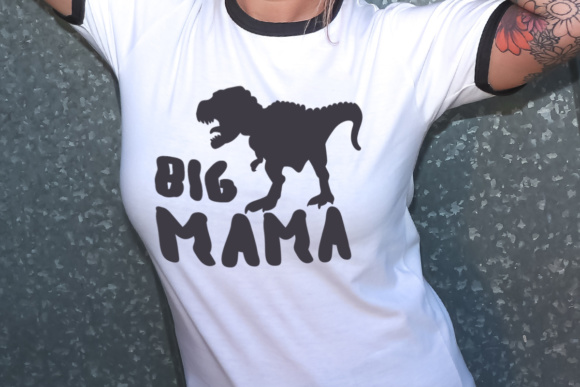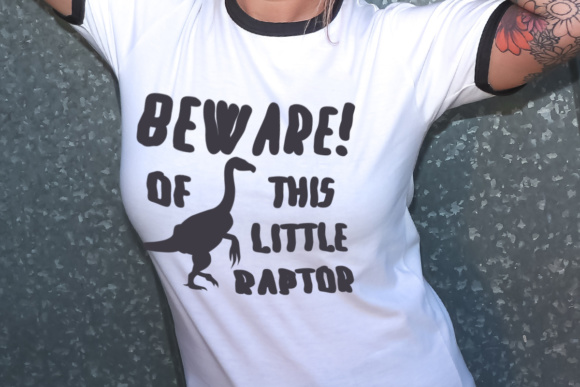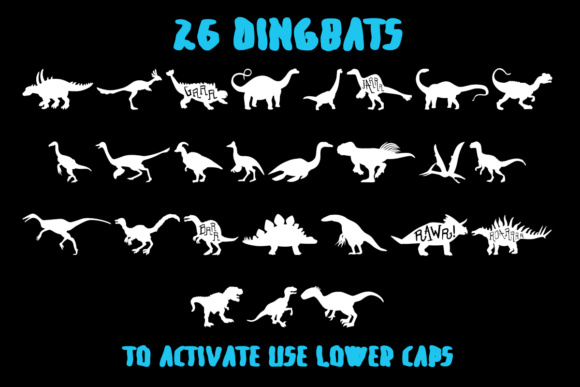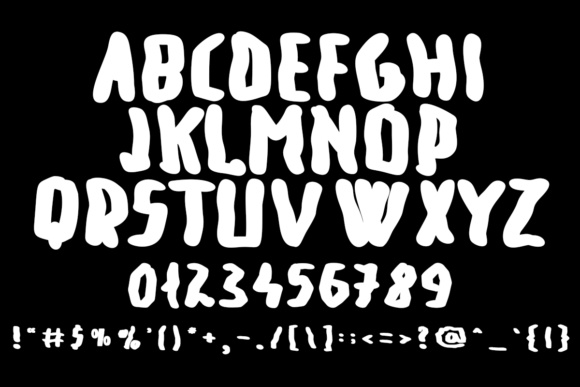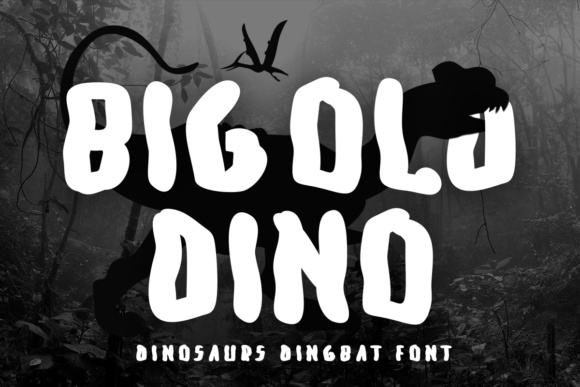
Unleash Your Creativity with Big Old Dino Font: A Stone-Age Inspired Masterpiece
Are you a designer, crafter, or DIY enthusiast looking for a font that screams prehistoric fun? Look no further than the Big Old Dino Font, a stone-age inspired typeface that’s sure to transport you back to a land before time. This exciting font comes packed with 26 rock-hard uppercase letters and 26 lowercase dinosaur dingbats, making it the perfect addition to your creative arsenal.
The Inspiration Behind Big Old Dino Font
Imagine a world where dinosaurs roamed free, and the air was thick with the sounds of a bygone era. The Big Old Dino Font captures the essence of this ancient world, bringing a touch of playfulness and whimsy to your designs. Whether you’re working on a project for kids or simply want to add some personality to your brand, this font is sure to delight.
What You Get with Big Old Dino Font
- 26 Uppercase Letters: The Big Old Dino Font comes with a full set of uppercase letters, each one carefully crafted to resemble the rugged, rock-hard textures of the stone age.
- 26 Lowercase Dinosaur Dingbats: But that’s not all – this font also includes 26 lowercase dinosaur dingbats, each one a fun and quirky representation of a different prehistoric creature.
Why Choose Big Old Dino Font?
- Unique and Playful: This font is unlike anything else out there – its unique blend of stone-age textures and dinosaur dingbats makes it a standout.
- Easily Readable: Despite its playful nature, the Big Old Dino Font is still easy to read, making it perfect for use in a variety of contexts.
Tips for Using Big Old Dino Font
- Mix and Match: Combine the uppercase letters with the lowercase dinosaur dingbats to create a truly unique look.